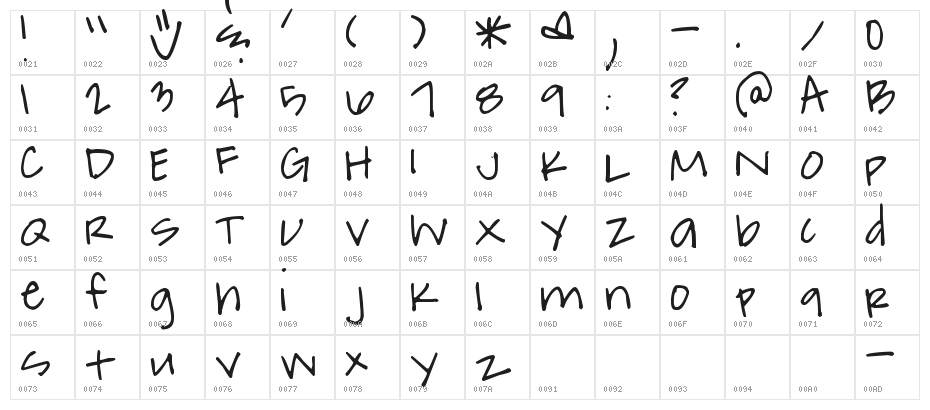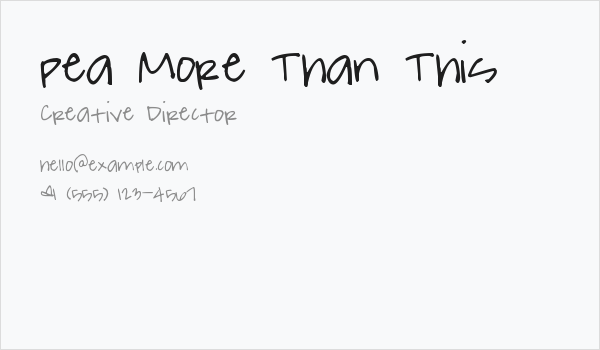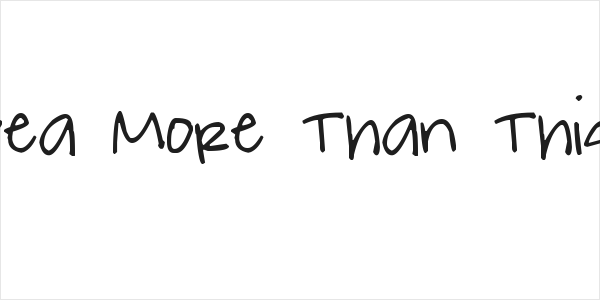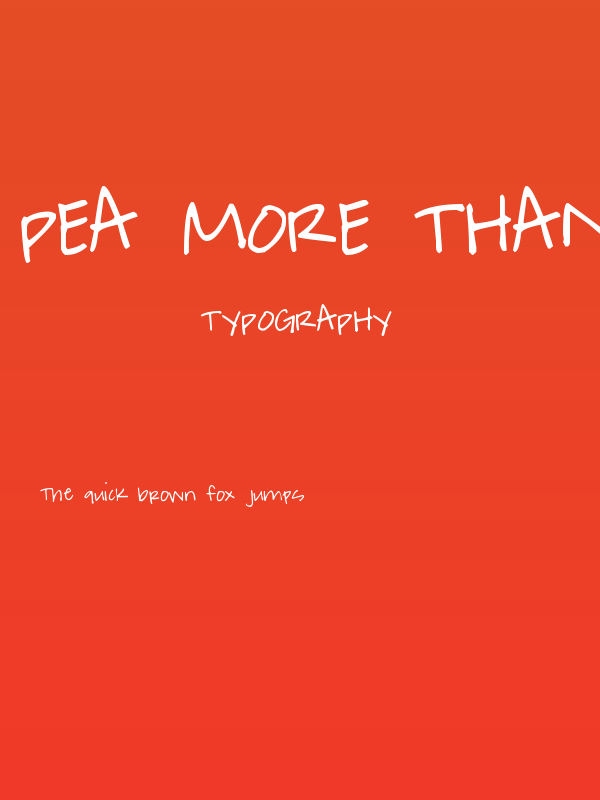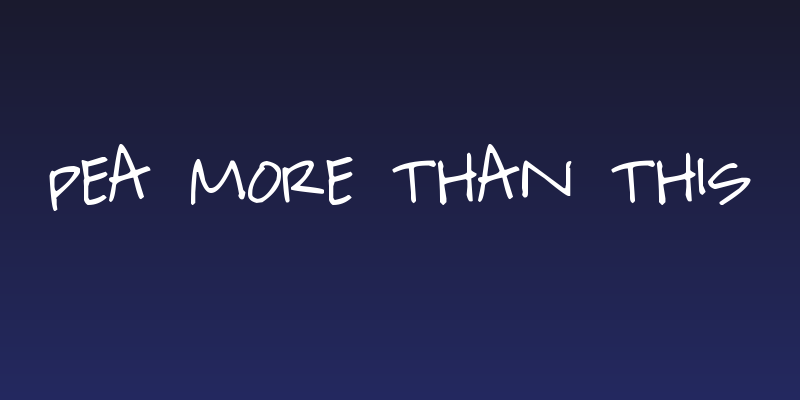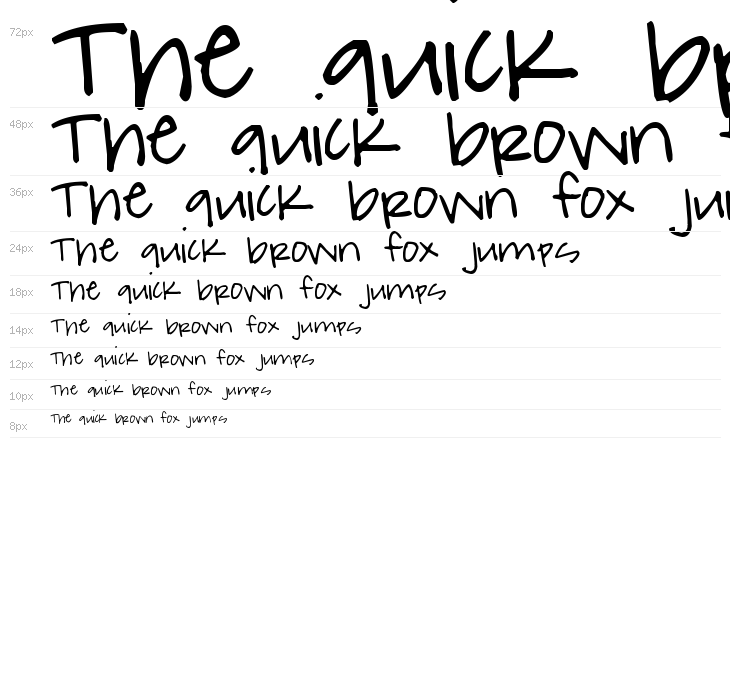
Pea More Than This Font
Pea More Than This Description
This font features a playful and casual handwritten style, characterized by its loose and informal strokes. The letters are slightly slanted, giving a dynamic and energetic feel. The uppercase and lowercase letters maintain a consistent flow, with rounded edges and a natural, organic appearance. The numerals and special characters follow the same informal style, making the font suitable for projects that require a personal touch. The overall impression is friendly and approachable, ideal for creative and informal applications.
| Proposed Projects | Ideal for greeting cards, personal invitations, children's books, and creative branding. |